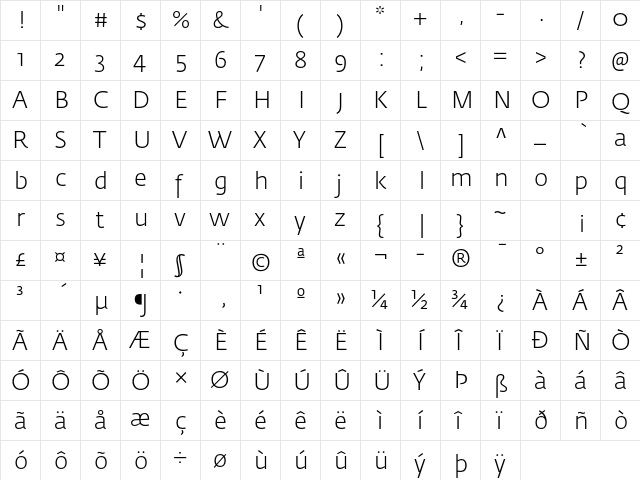
Fedra Sans Std Light
Design Context for Fedra Sans Std Typeface
Fedra Sans Std takes a measured approach to typography — its balanced proportions and neutral character make it a reliable workhorse for both digital and print work. Its slender proportions lend an understated elegance to any composition.